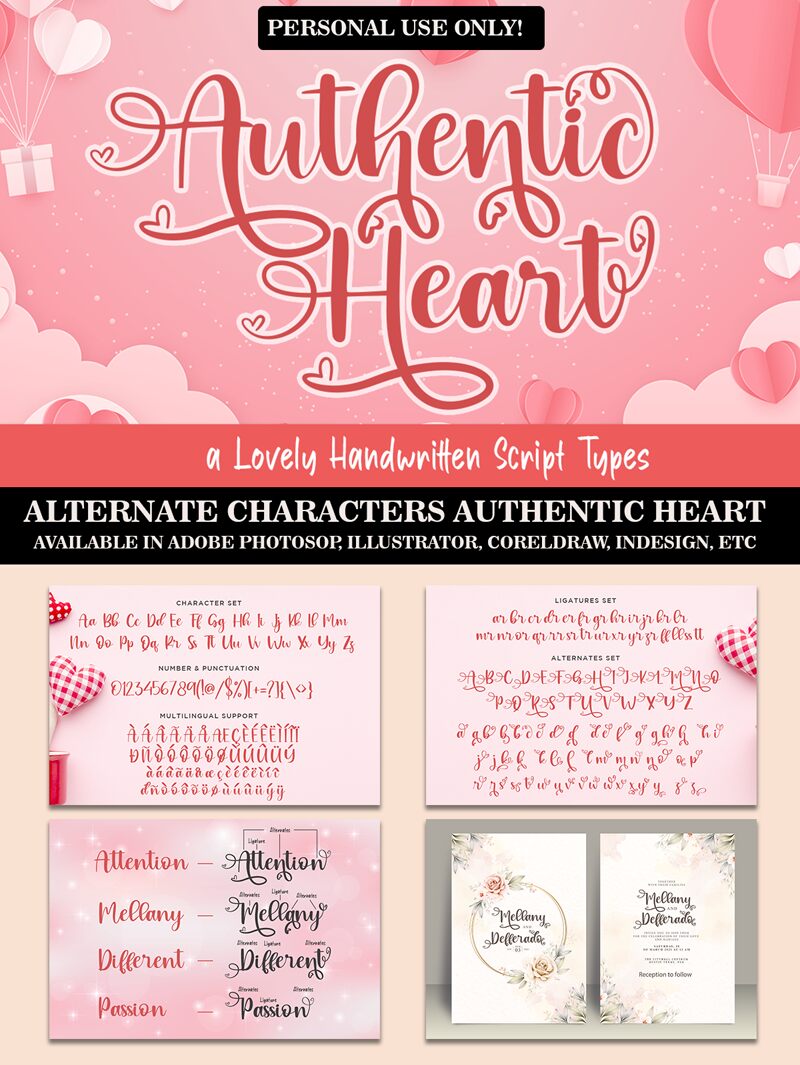
Authentic Heart - Personal Use
Authentic Heart, a handwritten font by Haksen Studio, exudes a personal touch that can add warmth and genuineness to any design. With its fluid strokes and varied line weights, this font mirrors the nuances of actual handwriting, inviting a sense of intimacy and human connection into the digital realm. The subtle elegance in its execution makes it versatile enough for both formal invitations and casual blog posts. Its aesthetic appeal lies in its balance between legibility and artistic flair, making Authentic Heart an ideal choice for projects seeking to combine readability with personality.
Whether gracing the pages of a heartfelt letter or the branding of a boutique business, Authentic Heart brings an authentic touch that is both visually engaging and emotionally resonant.